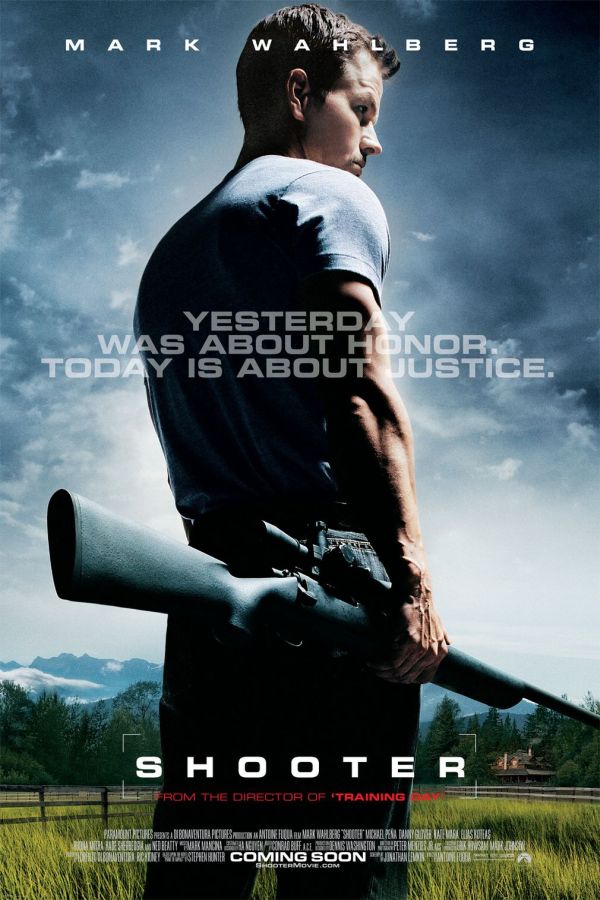
Shooter Font
ActionShooter is a 2007 American conspiracy movie based on the novel Point of Impact by Stephen Hunter. In the movie, a mercenary unit operating for a private military firm frames Force Recon Marine Scout Sniper Bob Lee Swagger (Mark Wahlberg) for murder.
The movie title in the poster is most likely Eurostile Bold Extended, a square sans designed by Aldo Novarese in 1962. More details about the font can be found here.